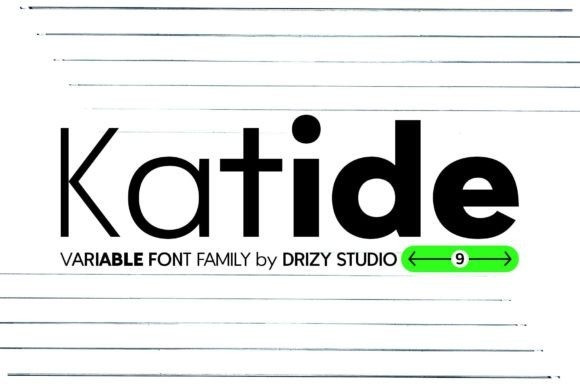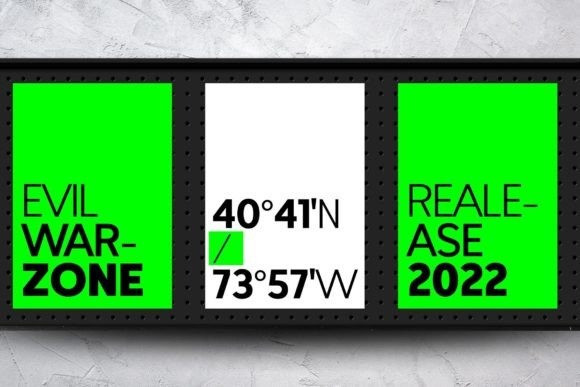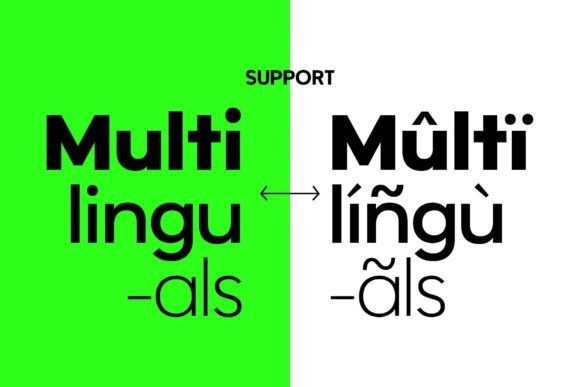
Katide Font
Katide is a modern and fresh sans serif font. Incredibly versatile, this font fits a wide pool of designs, elevating them to the highest levels. Add this font to your favorite creative ideas and notice how it makes them come alive!